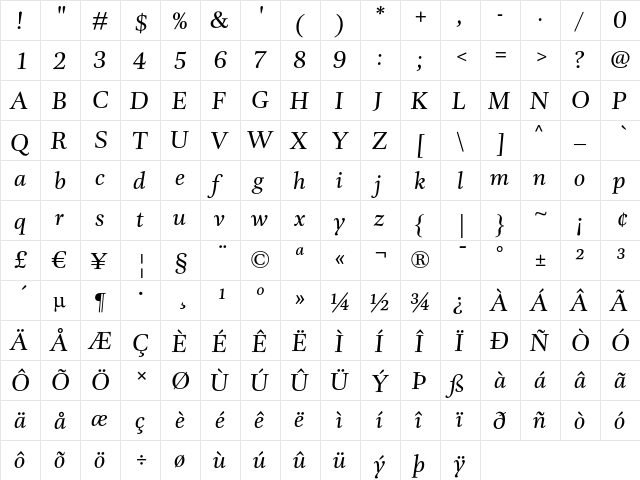
DTLUnicoT Italic
Design Context for DTLUnicoT Typeface
DTLUnicoT offers clean, dependable letterforms without strong stylistic allegiance, making it a practical choice for designers who need flexibility. Its italic angle brings a sense of urgency and motion to the letterforms.
Pro Tip: Try DTLUnicoT for annotation and caption copy alongside an upright companion — the contrast in angle creates a dynamic but ordered typographic system.